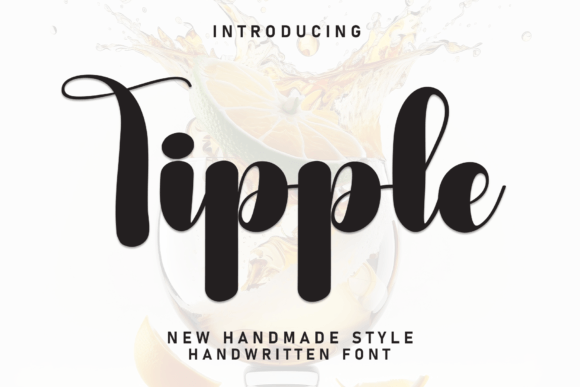
Voyage into the realm of elegance with Tipple Font, a charming handwritten font. Crafted by the visionary William Jhordie, this script font is a testament to artistry and creativity, beckoning you to explore its exquisite curves and delightful details.
Immerse yourself in the beauty of Tipple Font, a symphony of strokes that flow with grace and fluidity. Let your words take flight, carried by this enchanting font, as it weaves a spellbinding narrative that captivates the hearts of readers. Experience the allure of Tipple Font and elevate your designs to a realm of pure magic.
With Tipple Font, the ordinary transforms into the extraordinary. This font is a masterpiece that adds a touch of enchantment to every project. It's the perfect companion for creating heartfelt wedding invitations, where each letter carries the weight of a heartfelt promise. Let Tipple Font grace your greeting cards, imbuing them with warmth and sincerity that resonates with recipients.
But Tipple Font's enchantment extends far beyond the realm of personal correspondence. It's a font that breathes life into logos and branding, creating a lasting impression that lingers in the minds of customers. Its graceful strokes and captivating personality elevate marketing materials, brochures, and posters, ensuring that your message shines with unparalleled brilliance.
Step into a world where creativity knows no bounds with Tipple Font. Let your imagination dance freely as you explore a myriad of possibilities, from stylish social media posts to captivating blog designs. This font is an artist's muse, a gateway to a world where words transform into works of art.